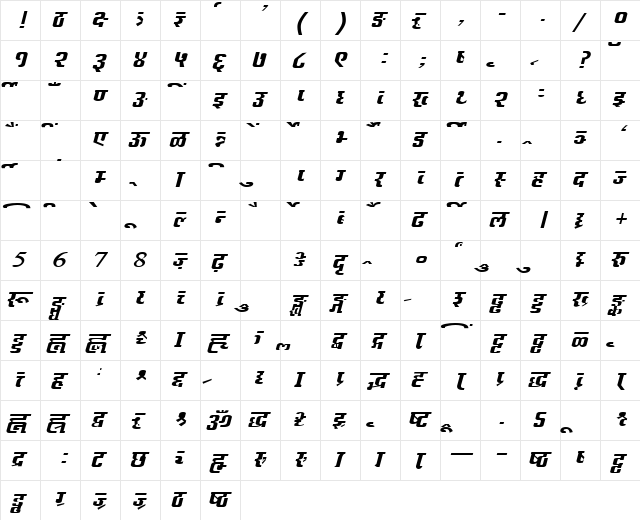
AkrutiDevRaksha NormalItalic
Design Context for AkrutiDevRaksha Typeface
AkrutiDevRaksha is a composed and adaptable typeface that performs quietly and consistently across a wide range of design contexts. Its italic angle brings a sense of urgency and motion to the letterforms.
Pro Tip: Try AkrutiDevRaksha for annotation and caption copy alongside an upright companion — the contrast in angle creates a dynamic but ordered typographic system.